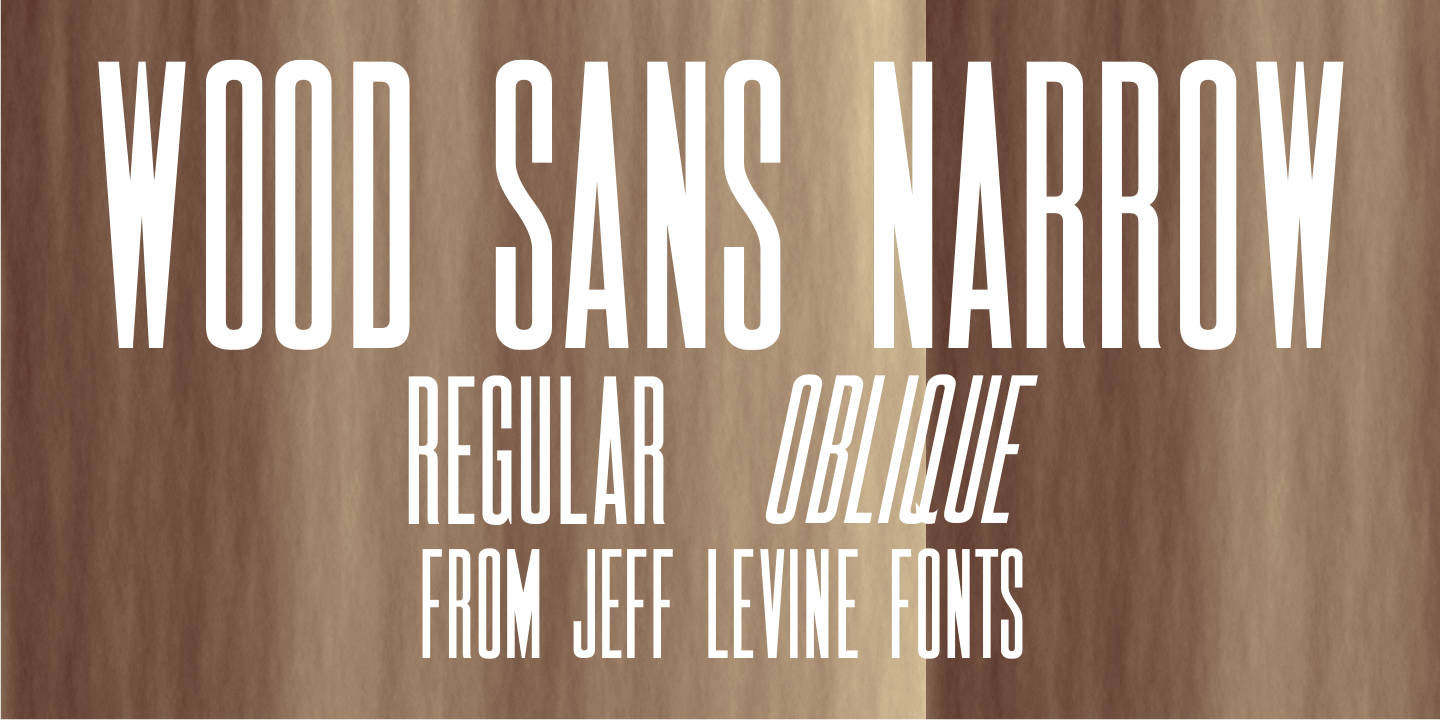
Wood Sans Narrow
Wood Sans Narrow JNL is based on examples of an extra condensed Hamilton Wood Type.
The design was cleaned up a bit to provide more uniform stroke widths, but still retains the nostalgic feel of a tall, narrow type face found on broadsides and posters of the late 1800s. It is available in both regular and oblique versions.
Wood Sans Narrow by Jeff Levine Fonts